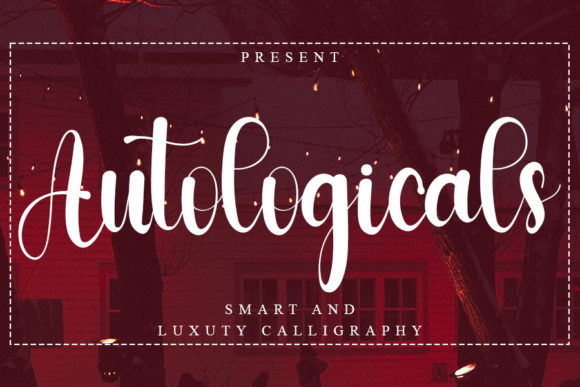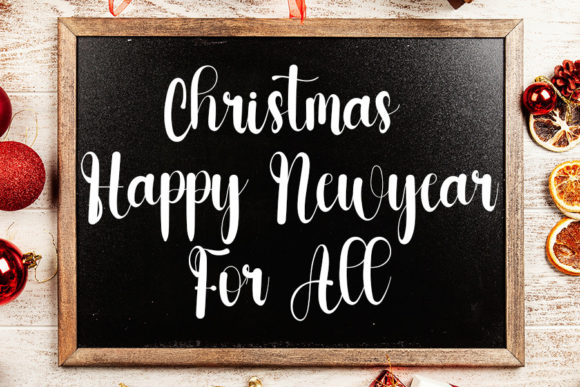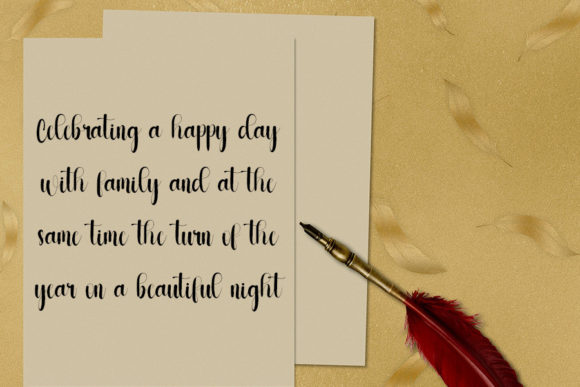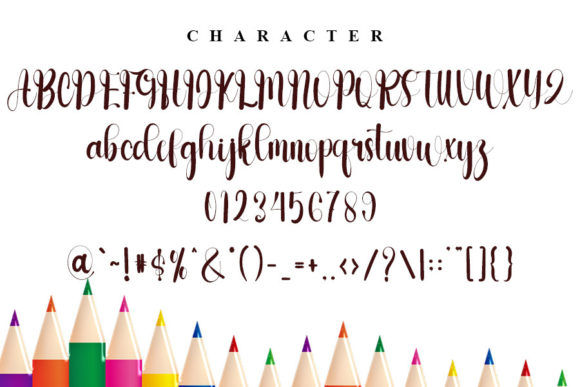
About Autologicals Font
Autologicals is a cool, casual, and relaxed handwritten font. Whimsical and a bit quirky, this font will brighten up each of your designs.